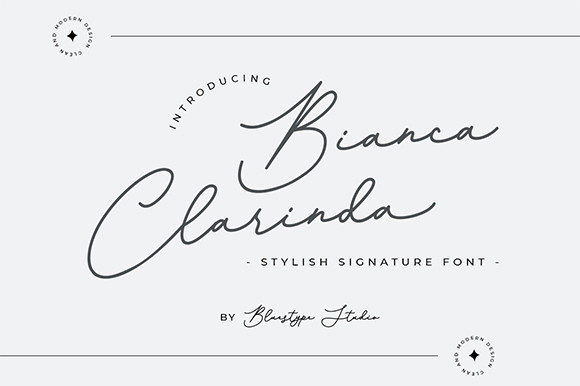
Behold Bianca Clarinda, a mesmerizing script font crafted with meticulous attention to detail and unrivaled elegance. This exquisite font family exudes a timeless charm and sophistication that will elevate your designs to new heights. Whether you seek to grace your magazine covers with captivating headlines or desire an enchanting touch for your branding, Bianca Clarinda is your perfect companion.
Bianca Clarinda's delicate strokes and graceful curves evoke a sense of refined luxury, captivating the eyes of your audience with its effortless beauty. Its stylish alternates and ligatures seamlessly blend together, adding depth and dimension to your creations. With Bianca Clarinda as your font of choice, you unlock a world of creative possibilities, allowing you to craft designs that leave a lasting impression.
Unleash your creativity and embark on a journey of visual artistry with Bianca Clarinda. This font is effortlessly versatile, adapting seamlessly to a symphony of design projects. Its delicate touch adds a hint of elegance to wedding invitations and stationery, while its bold presence commands attention in posters and advertisements. Let Bianca Clarinda's timeless appeal elevate your branding, leaving an indelible mark on the minds of your customers.
With Bianca Clarinda at your fingertips, open the door to a world where design dreams come true. This font is a treasure trove of typographic beauty, waiting to be discovered and explored. Its PUA encoding ensures effortless access to a symphony of glyphs and swashes, unlocking endless possibilities for customization and creativity. Elevate your designs to an ethereal realm with Bianca Clarinda, the font that embodies sophistication and artistic excellence.